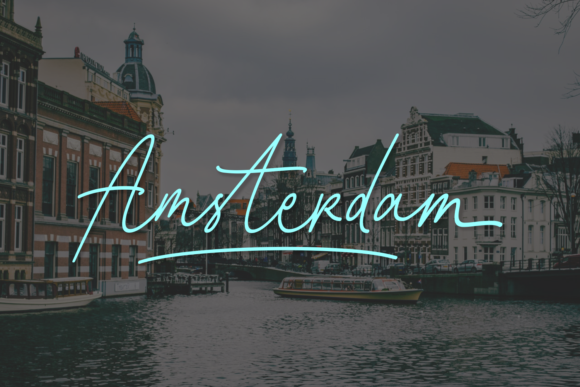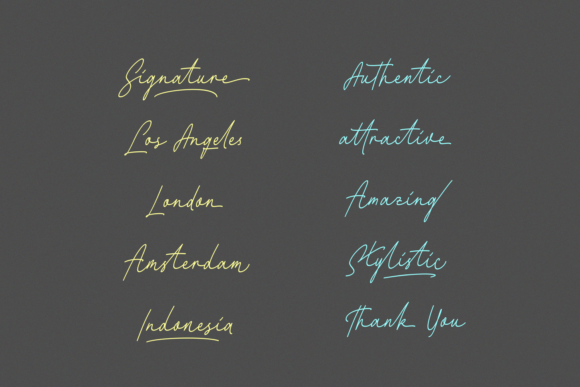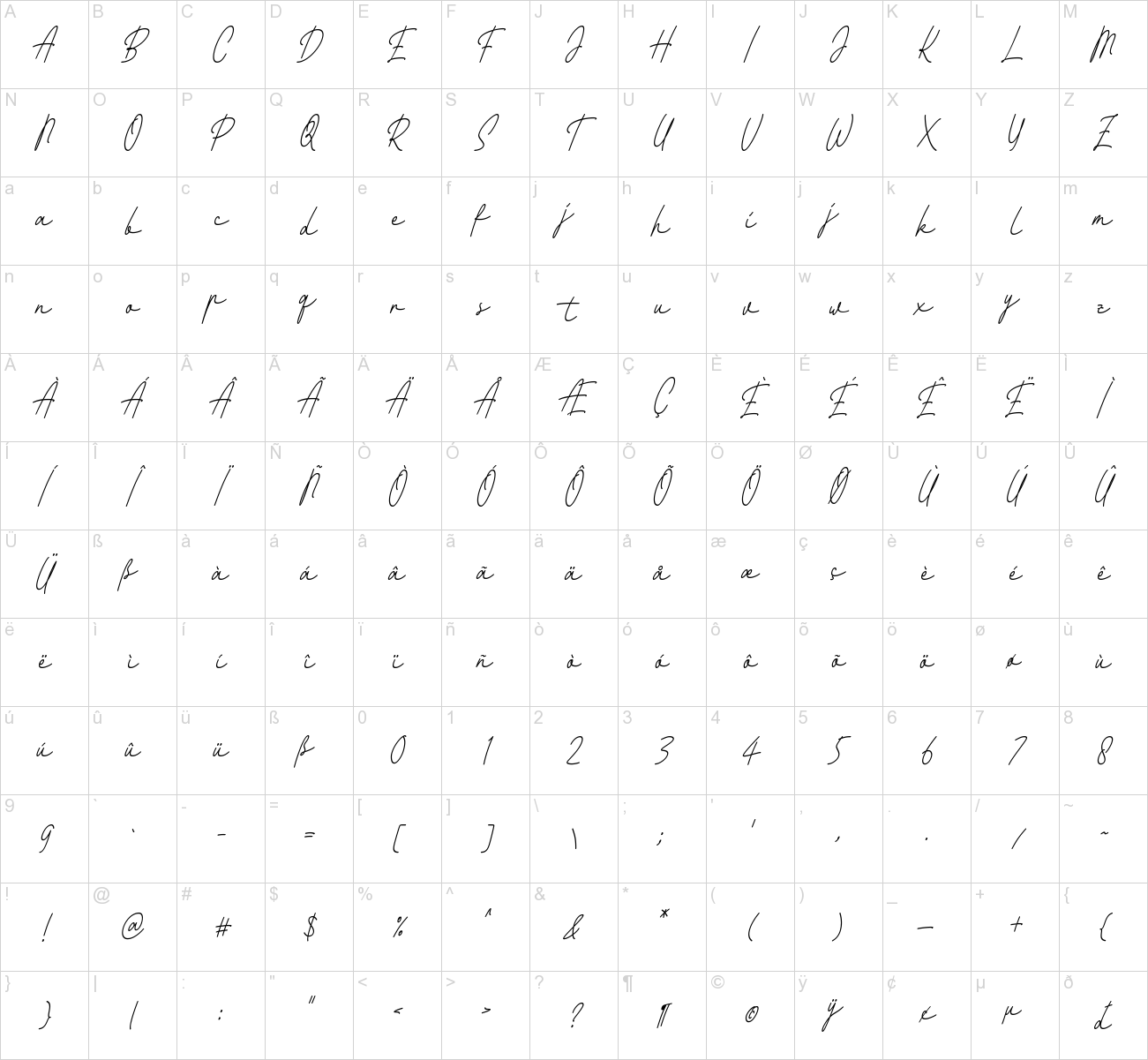
Fattana Signature Font
Fattana is a wonderfully stylish signature font, perfect for use in headlines and editorial purposes. This font is monoline and thin, giving your designs a sleek appeal.
Classification: | Handwritten, Script |